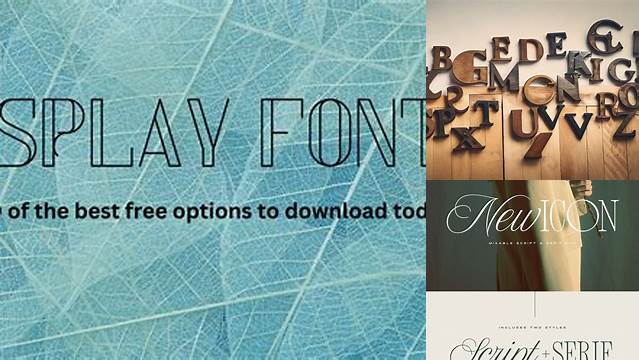
Free Display Fonts: Your Ultimate Design Guide
Hey design enthusiasts! Today, we're diving headfirst into the awesome world of free display fonts. These fonts are the unsung heroes of design, capable of instantly grabbing attention and injecting personality into your projects. Whether you're a seasoned pro or just starting out, understanding and utilizing display fonts can seriously elevate your game. So, let's get down to brass tacks and explore everything you need to know about these eye-catching typefaces.
What Exactly Are Display Fonts?
First things first, what are display fonts anyway? Well, put simply, they're typefaces designed to be used in large sizes, primarily for headlines, titles, and short bursts of text. Think of them as the attention-getters of the font family. Unlike their more reserved cousins, like body fonts designed for long-form reading, display fonts are all about making a statement. They often boast unique and artistic designs, pushing the boundaries of typography and offering a wide range of styles, from bold and playful to elegant and sophisticated. They are meant to be seen, not necessarily read in bulk.
Think about it, when you land on a website or flip through a magazine, what's the first thing that catches your eye? Usually, it's the headings and titles, right? That's where display fonts shine. They are the visual anchors that immediately communicate the subject matter and set the tone for the entire piece. They're the secret weapon for creating an impact, helping your message stand out in a crowded digital landscape. Display fonts also add visual interest. They transform the way your project looks by adding a visual element that is unique and eye-catching. The font's style will set the tone, add personality, and can even help to communicate the meaning of the text itself. Display fonts are a crucial tool in the designer's toolkit, whether it is web design, graphic design, marketing materials, or anything else.
So, why use them? Because they work! They're like the visual equivalent of a catchy tune, instantly drawing your audience in. Display fonts can convey specific messages, such as modernism, classicism, or even minimalism. Display fonts can be used to create a strong visual impact. They give a clear message that helps your brand stand out from the competition. When used correctly, display fonts can increase brand recognition and make your project more effective. When using display fonts, keep in mind the context. Make sure the style of the font fits the project’s overall look. Display fonts are the perfect solution if you’re looking to make your project stand out. They are an essential element of any design project, whether it is branding, advertising, or website design. Display fonts are an excellent way to add visual appeal and make your message more memorable.
The Benefits of Using Free Display Fonts
Now, let's talk about the good stuff: why choose free display fonts? Well, apart from the obvious perk of being free (hello, budget-friendly!), there are tons of advantages to explore. First and foremost, you have access to a vast and ever-growing library of fonts, from classic serifs and sans-serifs to modern and quirky designs. This variety allows you to find the perfect font that complements your project, whether it's a website, a poster, or a social media graphic. This means that whether you are creating a design for yourself or for a client, you’re able to easily pick a font that is the right fit for your project. The selection is nearly endless and provides options to fit any style or brand.
Another fantastic benefit is the opportunity to experiment. With no financial commitment, you can download and try out various fonts without any risk. This allows you to explore different styles, test out combinations, and discover new fonts that you might not have considered otherwise. It also allows you to learn what you like. Being able to try out multiple different fonts without a financial commitment gives you the freedom to explore and learn what works best for you. The ease of access also means that designers can easily integrate display fonts into their workflow without adding extra steps or costs. This also allows designers to keep their resources readily available so they are able to quickly adapt and create a wide variety of projects.
Where to Find Awesome Free Display Fonts
Alright, time to reveal the treasure map! So, where do you actually find these amazing free display fonts? There are several fantastic resources available online, and here are a few of my personal favorites:
- Google Fonts: This is probably the first place you should look. Google Fonts offers a massive collection of open-source fonts, including a wide variety of display fonts. They're all free to use, easy to download, and can be used for both personal and commercial projects. It has a great selection of fonts that are accessible for use on various platforms, making it a great choice for designers looking for a wide range of options. Google Fonts is constantly updating its library with new options, so it is a great source to check out regularly. There are also plenty of resources available to help you choose the perfect font, including information about each font's style, size, and usage guidelines.
- Font Squirrel: Font Squirrel is another great resource. They curate a collection of high-quality, free fonts with commercial-use licenses. They also offer a font identifier tool, which is super handy if you're trying to identify a font you've seen somewhere. Font Squirrel makes it easy to navigate its options, allowing you to filter by style, tags, and other criteria. This makes it easy for designers to find the right fonts to fit their needs. The platform also provides detailed information about each font, making it easy to understand the capabilities of each font before you begin using it. Font Squirrel also hosts a variety of articles and tutorials on typography, making it a great place to learn about fonts and design.
- DaFont: DaFont is a popular website with a huge selection of free fonts, categorized by theme and style. While the quality can vary, you can find some real gems here. Be sure to check the license before using a font for commercial purposes. DaFont also allows users to preview their chosen fonts in different styles and sizes, allowing designers to experiment with different looks. This platform also provides users with a wealth of information about each font, making it easier to pick the right one for each project. It's a great place to look for inspiration and try out different font combinations. The selection of fonts is consistently being updated, so DaFont provides access to the latest fonts to help you give your project a unique touch.
- Behance and Dribbble: These platforms are great for finding inspiration and discovering fonts created by other designers. Many designers offer their fonts for free or for a small fee. Browsing through these platforms can expose you to unique and creative display fonts you might not find elsewhere. You can learn more about these fonts by exploring each designer's profile and discovering how each font is used in their projects. Behance and Dribbble are an amazing way to stay up-to-date on the latest fonts and design trends. You'll be able to network with designers, learn more about the fonts you like, and potentially collaborate on future projects.
Remember to always check the licensing terms before using any font, even if it's free. Some fonts are free for personal use only, while others have commercial licenses available. Always check to make sure that you're following the rules.
Tips for Choosing the Perfect Display Font
Choosing the right display font can be a game-changer. Here are some tips to help you make the perfect selection:
- Consider Your Project's Tone: Does your project need to be playful, serious, elegant, or modern? The font you choose should reflect the overall vibe and message you want to convey. The tone of your project can be a great way to help you narrow down the display fonts that will fit your project's needs. Choose a font that fits your project's mood and style to create the best results. Your font should fit the overall tone of your project and give it a cohesive look. Using fonts that fit the project's tone is a great way to create a connection with your target audience. When choosing a font, you'll also want to think about your target audience. Different fonts will resonate with different demographics, so your font selection should also consider your target demographic.
- Think About Readability: While display fonts are meant to be used at larger sizes, readability is still important. Avoid fonts that are overly ornate or difficult to decipher, especially if you're using them for titles or headings. This is a crucial step in the process. If your font is too difficult to read, your message may be lost. Make sure the font is clear and easy to understand at the intended size. This will ensure your message is easily understood by your target audience. If you are unsure about the readability of a display font, it's always a good idea to test it out with a variety of texts.
- Pairing Fonts: Don't be afraid to mix and match fonts! Pairing a display font with a clean, easy-to-read body font can create a visually appealing and balanced design. It's an amazing way to combine different fonts to create a perfect visual balance. Pairing fonts can add a sense of sophistication and artistry to your project. Pairing the right fonts can help to emphasize different aspects of your text, such as headlines or body text. You should consider the overall look of your project when choosing the right fonts to pair. Display fonts and body fonts should complement each other. The font choices should enhance each other to create a unified look. Pairing different font styles can create a dynamic design. Experimenting with different font combinations can help you find the best match for your project. This process is a fun way to discover different styles that will elevate the quality of your work.
- Consider the Context: Where will the font be used? A font that works well on a website might not be ideal for a printed poster. Think about the medium and the environment in which your text will be displayed. The context of your project will impact your decision. Consider the audience, the location, and the environment where the font will be displayed. Think about the visibility and the ease with which people will be able to read the font. The best font will vary depending on the context and what you're trying to accomplish with your project. Considering the context can also help you choose a font that works well with the brand's overall identity. This can include brand colors, logo, and other elements. Taking into consideration the context of a project can also help you prevent any mistakes. This helps to ensure that your font choices will enhance the project and effectively communicate its message.
So there you have it, a complete guide to the wonderful world of free display fonts. By understanding what they are, where to find them, and how to use them effectively, you can take your design projects to the next level. So, go forth, experiment, and have fun creating visually stunning designs that capture attention and leave a lasting impression! Happy designing, guys!